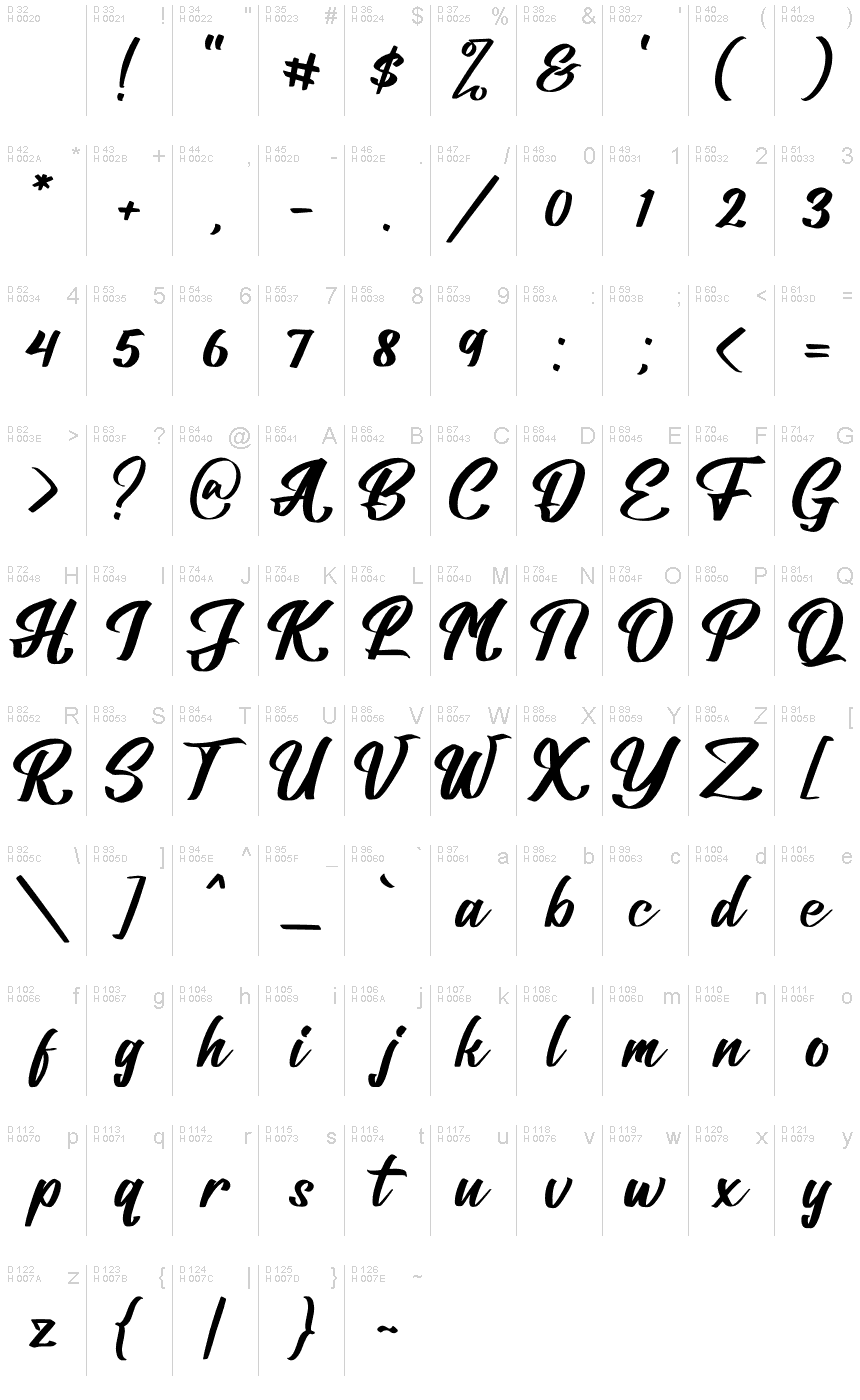
Billead Dandy
Billead Dandy is a stylish handwritten font created by Perspectype Studio, is perfect for adding a personal touch to any project. Perfect for posters, invitations, logos and more, Billead Dandy adds an elegant touch to any design.